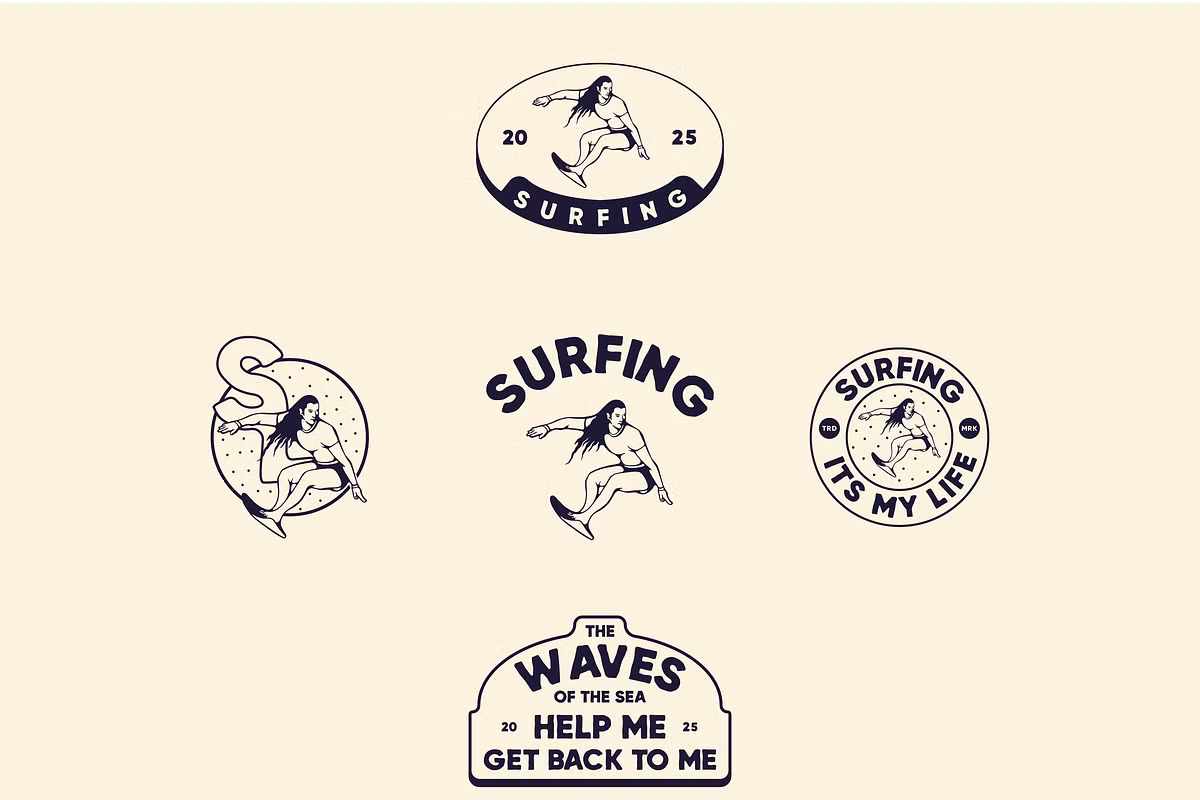
HAN Breezy: Vintage-Inspired Hand-Drawn Display Font
Introducing Han Breezy Font
The Han Breezy Font is really nice, it has a classic feel to it, like something from a long time ago. But it’s also modern and can be used in lots of different projects. What makes it special is that each letter is drawn by hand, with lots of little details and curves that give it a friendly and warm look. This font is great for adding some personality to your writing, and it’s easy to use in all sorts of designs. It’s like a mix of old and new, which makes it really versatile and fun to work with. Whether you’re making a poster, a card, or just typing out a message, the Han Breezy Font can add a touch of elegance and charm.
Design Style of Han Breezy Font
The Han Breezy Font has a really cool, old-school style that’s all about celebrating the past. It gets its inspiration from the long history of typography, and you can see that in its fun, curvy shapes and natural feel. Because it’s hand-drawn, it has a one-of-a-kind quality that sets it apart from your average fonts, making it perfect for designs that want to bring back memories of the good old days. The font’s playful vibe is great for adding some personality to your work, and its unique look will definitely make your designs stand out.
Whether you’re going for a retro feel or just want to add some visual interest, the Han Breezy Font is a great choice. Its classic style is sure to evoke a sense of nostalgia in anyone who sees it, and its hand-drawn quality gives it a special touch that’s hard to find in other fonts. The Han Breezy Font has a really cool, old-school vibe that’s great for adding some personality to your projects. If you’re making posters, invitations, or stuff for your brand, this font can give it a fun and charming feel that people will love.
Characteristics of Han Breezy
- Hand-Drawn Aesthetic: The font mimics the imperfections of hand lettering, offering a personal touch.
- This font is really useful because it’s easy to read, making it perfect for both headings and the main text.
- Character Variety: Includes a comprehensive set of characters, ensuring compatibility with multiple languages and contexts.
Character Sets and Features
The Han Breezy Font has lots of different characters, so you can use it for many kinds of designs. It’s got uppercase and lowercase letters, numbers, and punctuation marks – everything you need to get your message across. Each character is carefully designed to work well with the others, so your text will look great no matter what you’re saying. With this font, you can say what you want without sacrificing style.
The Han Breezy Font has some really cool features, like ligatures and stylistic alternates, which are extra characters that let you get creative with your text. These extra characters give you more options to make your text look unique and personalized. Because the font is hand-drawn, it has a nice, informal feel to it, even when you’re just using the regular characters. This makes your text look more interesting and fun to read.
Use Cases for Han Breezy Font
The Han Breezy Font is really versatile, which means it can be used in many different design projects. Here are some examples of when it would be a good choice:
- To make your brand really memorable, try using the Han Breezy Font in your logo and other promotional stuff. It’s got a cool, old-school vibe that can really help you stand out, especially if you’re in a field like handmade products, hotels, or art. This font is perfect for giving your brand a unique and charming look that will make people remember you.
- Event Invitations: Whether it’s a wedding, birthday party, or any special occasion, the Han Breezy Font adds a personal touch to invitations and announcements, enhancing the nostalgic feel of your event.
- Packaging Design: Use the font on product packaging to evoke a sense of warmth and authenticity. It works particularly well for handmade or vintage-inspired products.
The Han Breezy Font is really good for making print stuff look nice. You can use it for things like magazine covers, flyers, and more. It’s got a special hand-drawn look that makes things more interesting to read. This means people will be more likely to pick up your magazine or flyer and take a look. The font is fun and can help make your print materials stand out.
Pairing Suggestions for Han Breezy Font
Consider pairing the Han Breezy Font with complementary typefaces to enhance your designs. Its unique characteristics can be beautifully contrasted with cleaner, more modern fonts, creating a balanced and visually appealing layout.